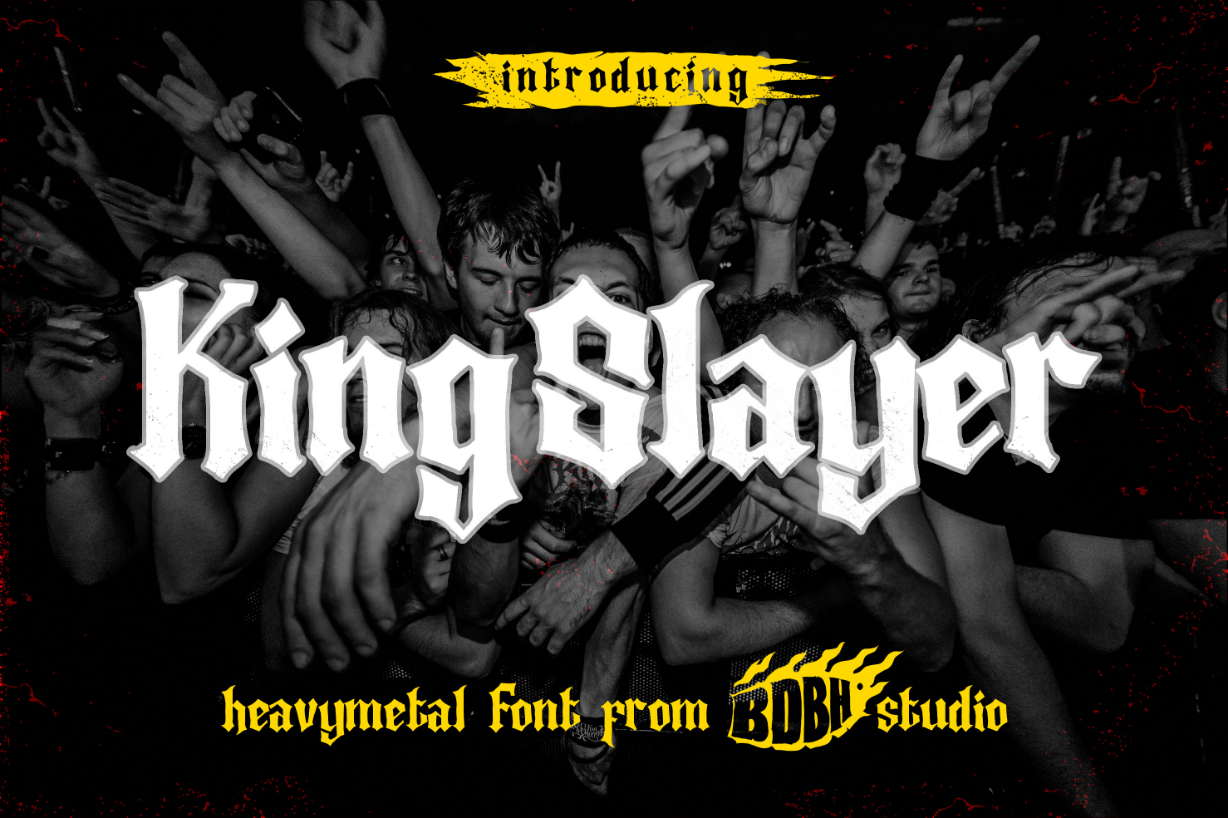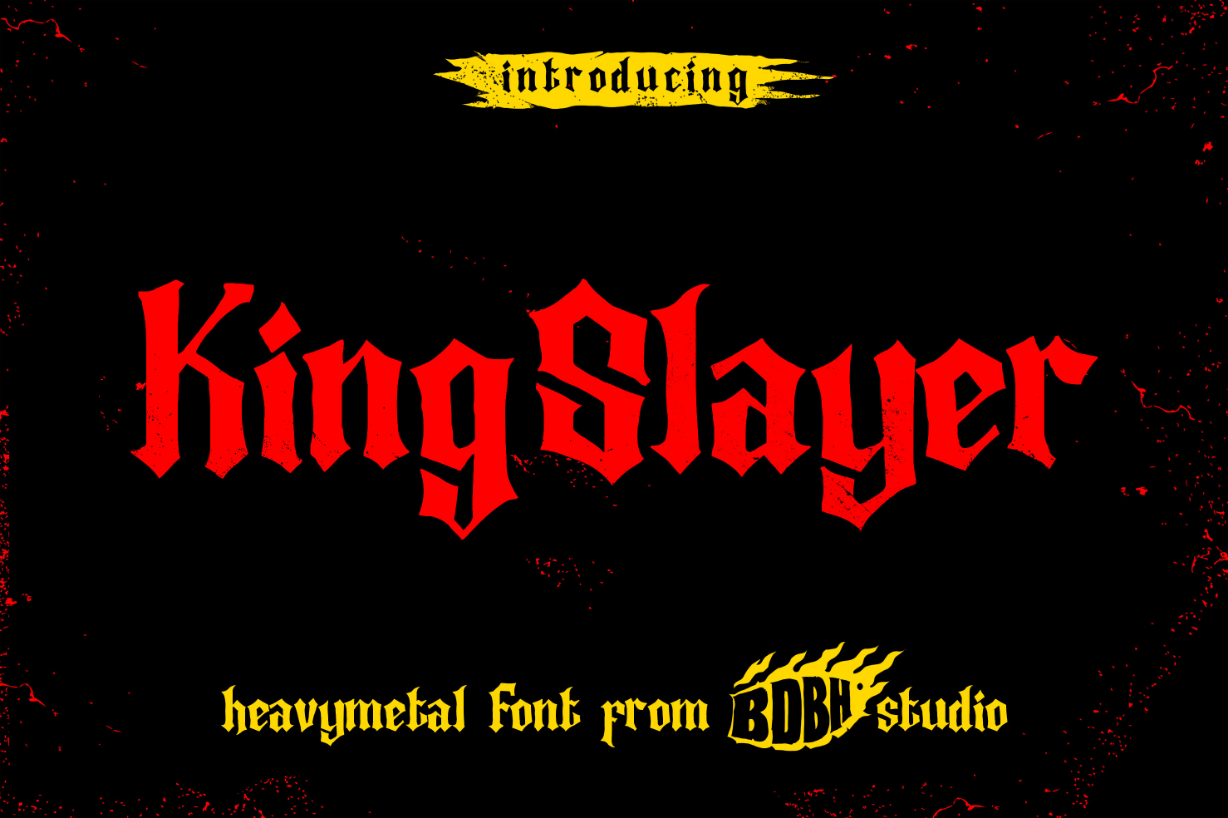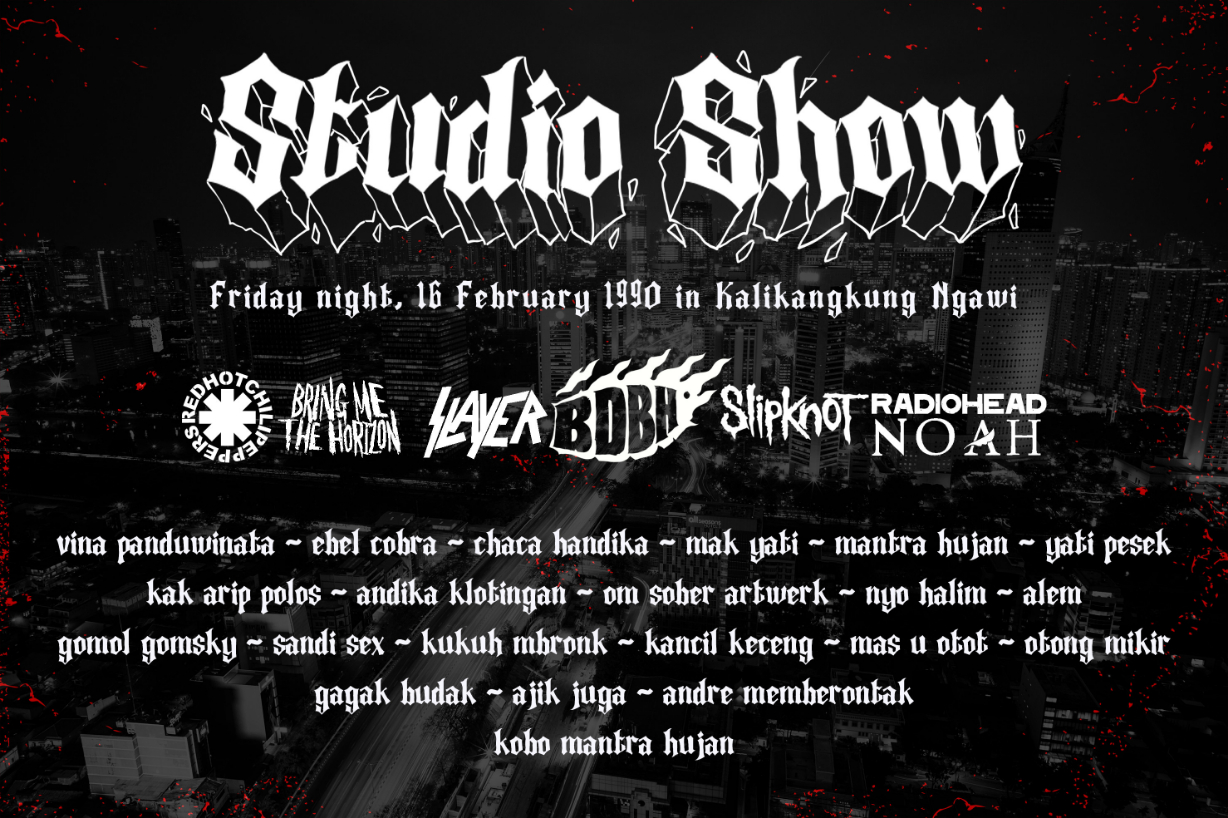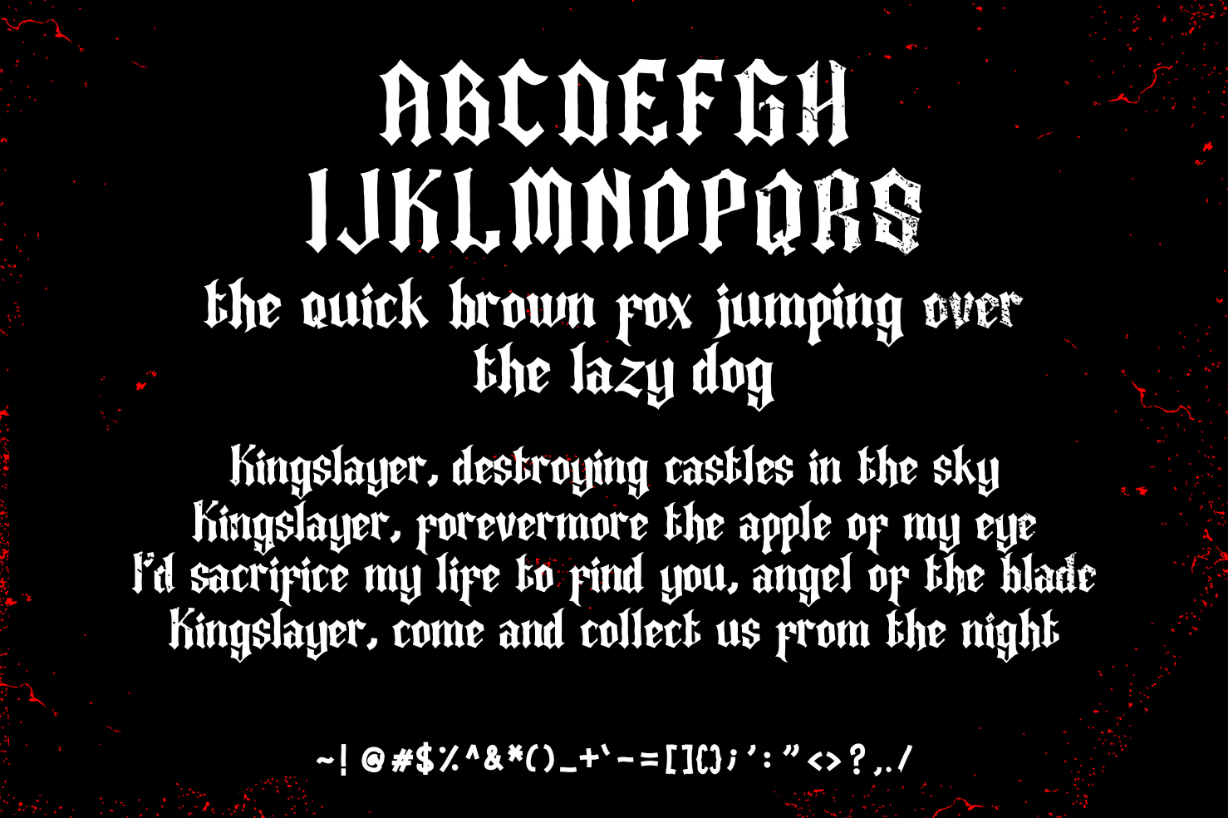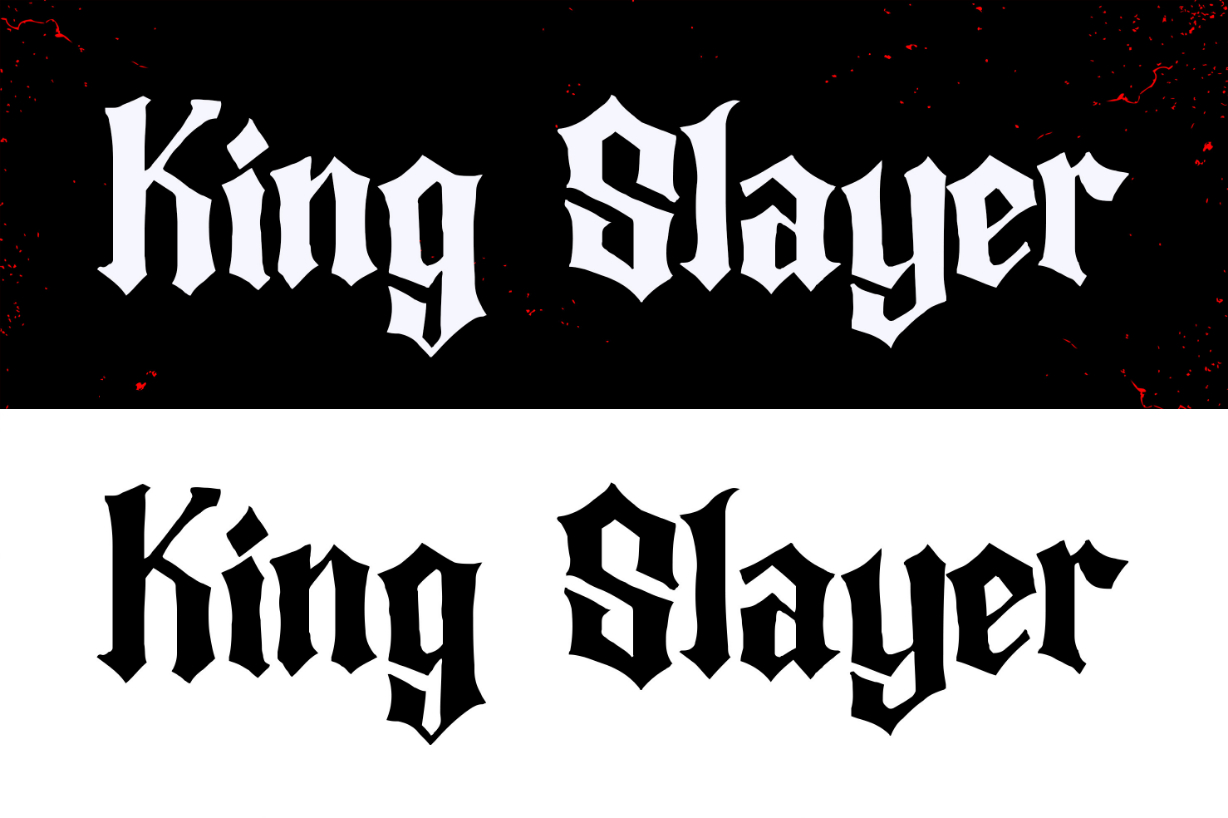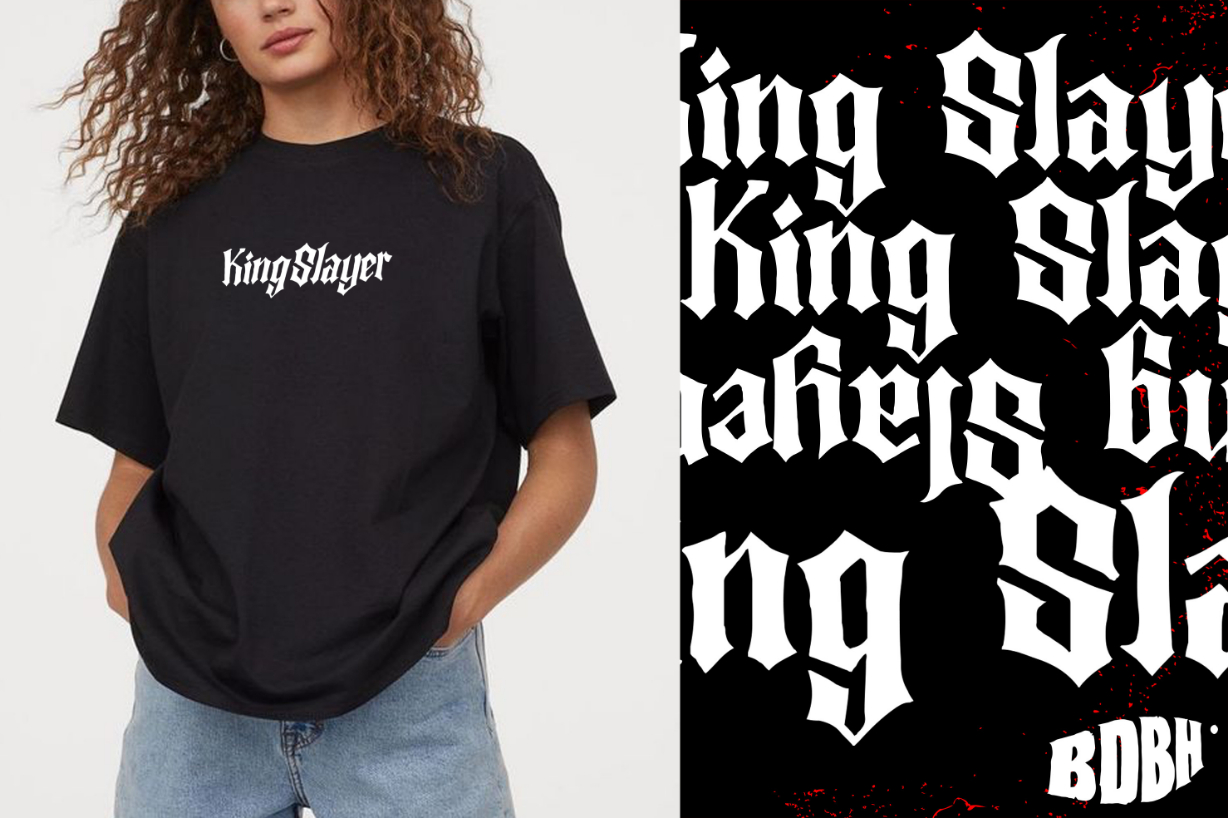
King Slayer Font
About King Slayer Font
King Slayer is a black letter font with a nice heavy metal touch. This font is ideal for any design that requires a firm touch. Add it confidently to your projects, and you will love the results.